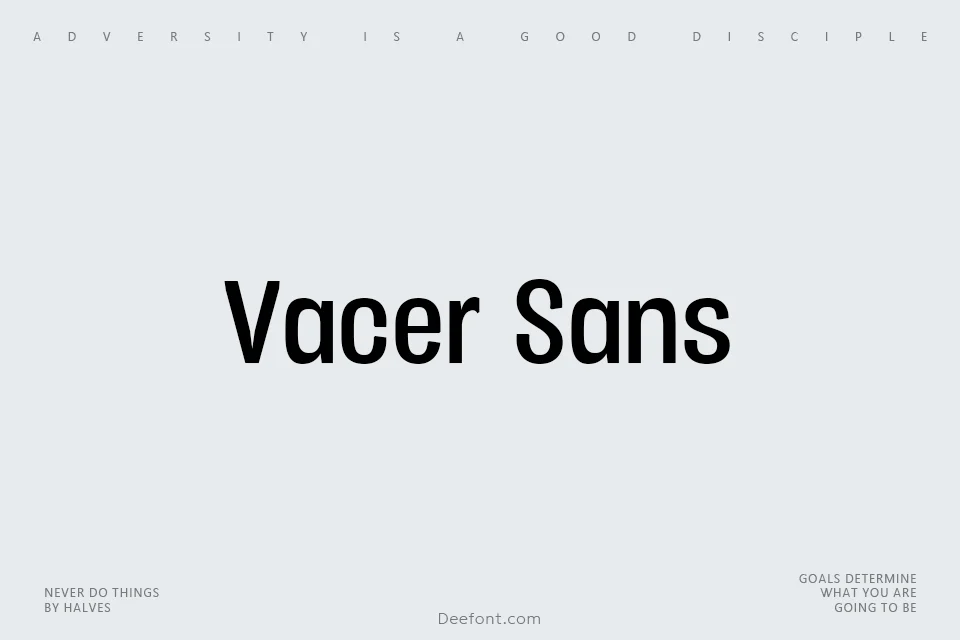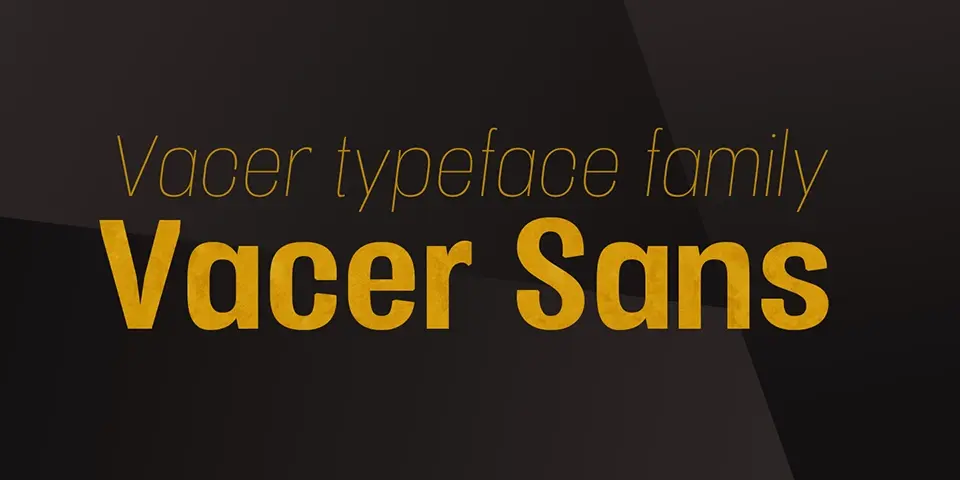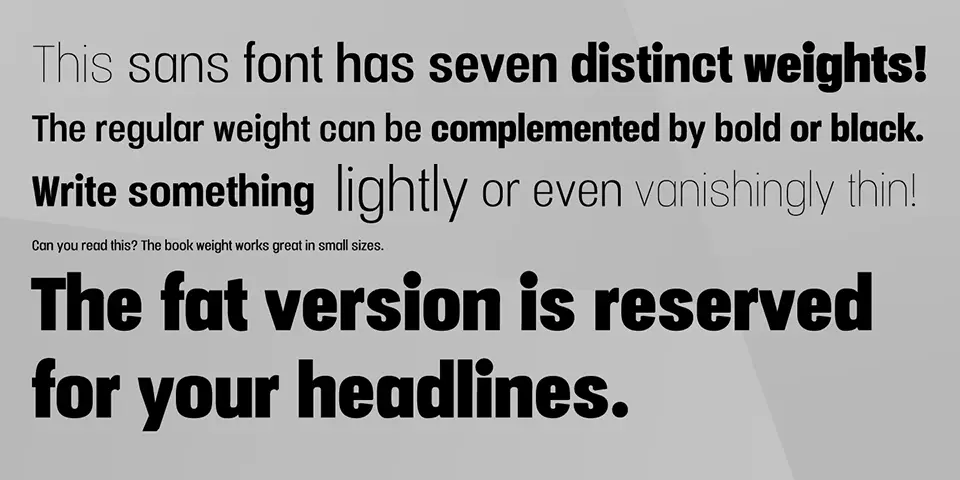
Vacer Sans Font Family
Vacer Sans is a versatile sans-serif font family featuring seven distinct weights ranging from thin to fat. Designed by Måns Grebäck and released in 2016, this geometric typeface combines clean lines with modern aesthetics, making it ideal for headlines, branding, and contemporary designs. With 364 glyphs supporting multiple languages and accents, Vacer Sans offers extensive flexibility for diverse typographic applications. The font’s balanced proportions and geometric construction ensure excellent readability across various sizes and media.